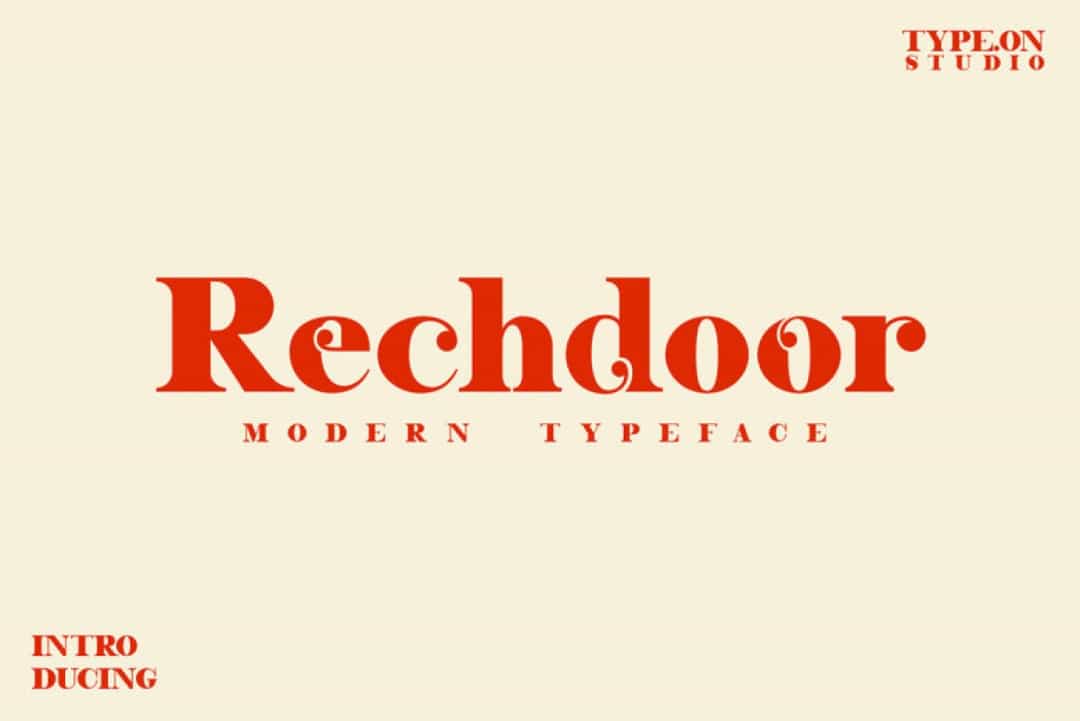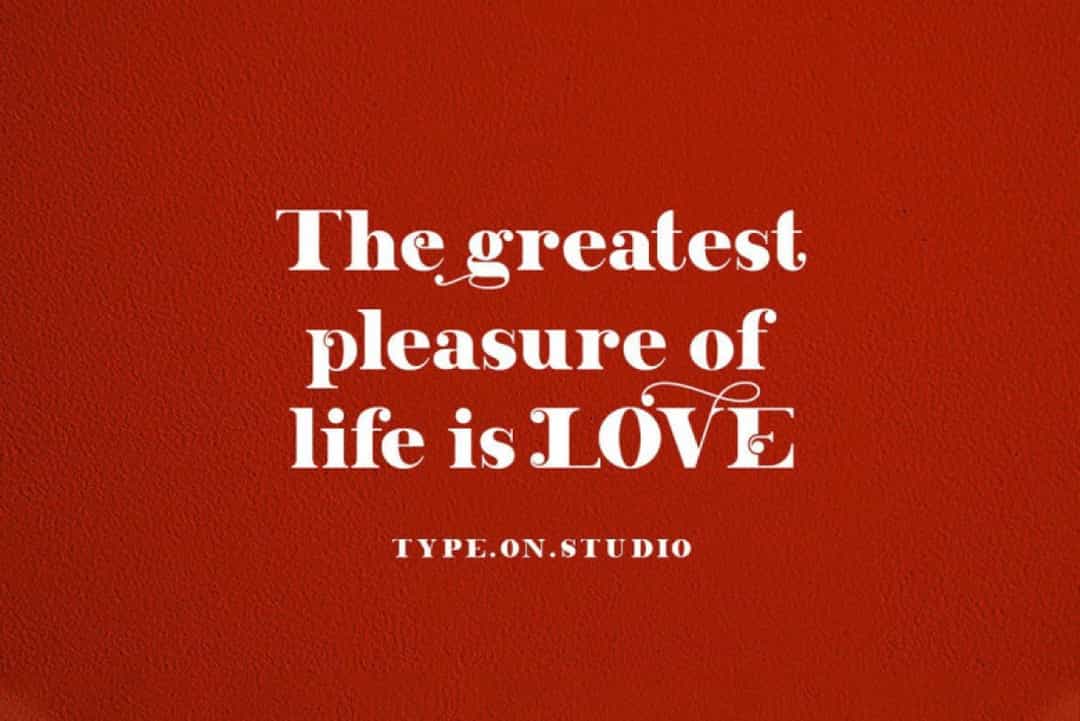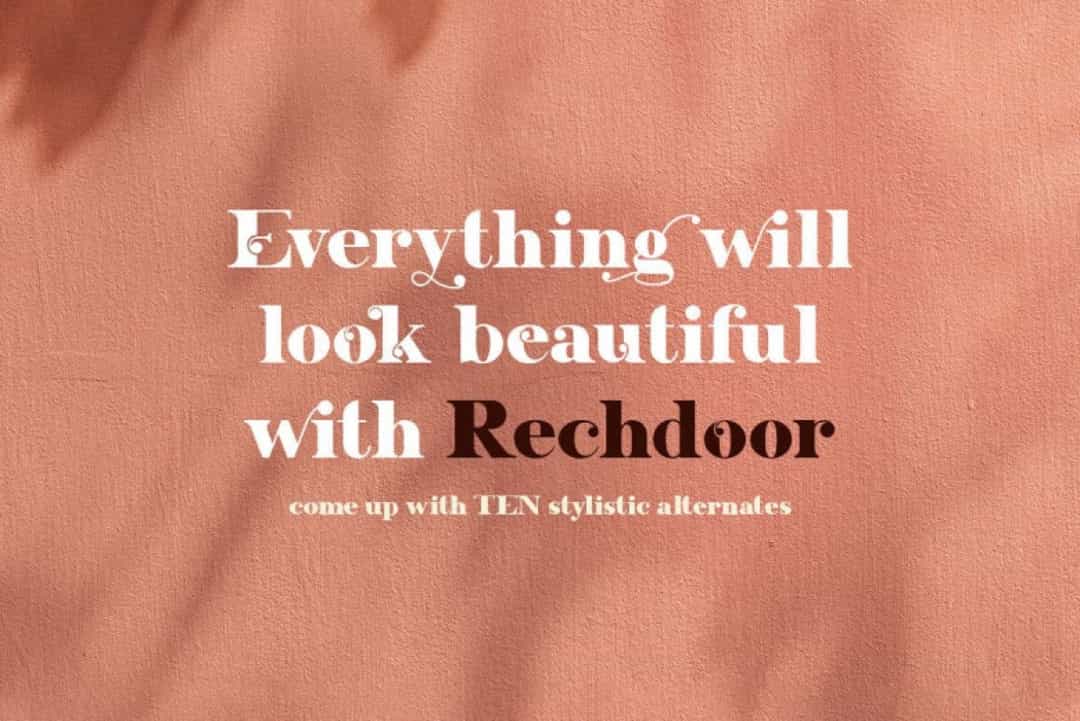
Discover Rechdoor Font, part of the Serif collection—a versatile and unique font perfect for adding a personal touch to your projects. Download it for free and enjoy crafting designs with style, from invitations to social media posts. This font is available exclusively for personal use, giving you the freedom to create without limits. Unlock your creativity with Rechdoor Font today!
Rechdoor is an eye-catching serif font that exudes style. PUA encoded, it allows easy access to all glyphs and swashes – use this font in any of your designs for jaw-dropping results!